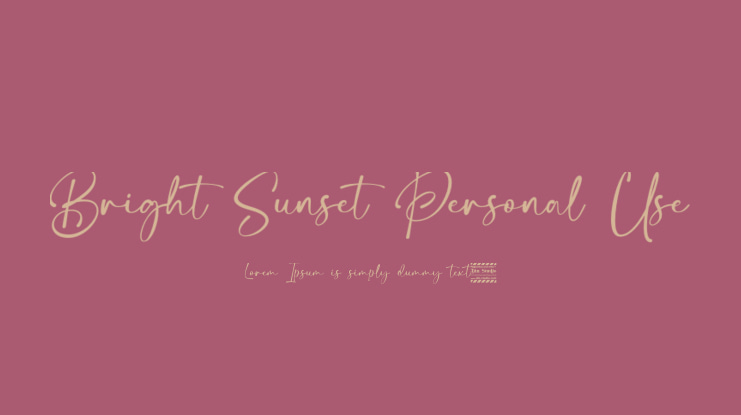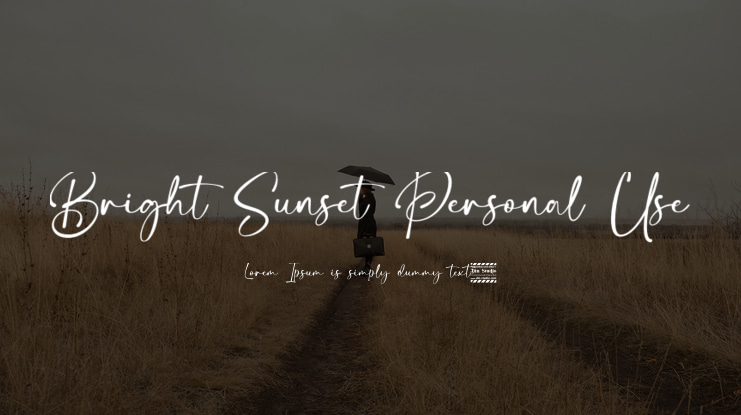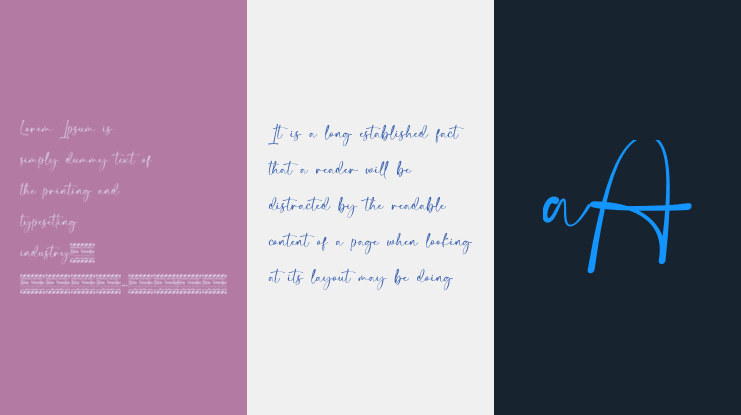
Bright Sunset is a typeface that combines elegant with modern style. An easy-to-read typeface, with a touch of character, the font is highly adaptable to the modern style, to fit whatever your project needs.